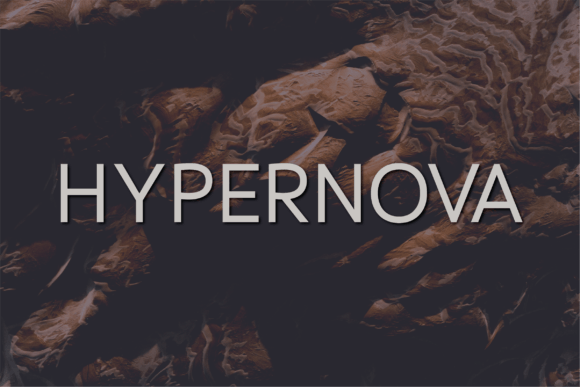
Unlock the Power of Typography: Introducing Hypernova Font
You know that moment when a font just clicks, and your entire design comes together in a beautiful, cohesive way? It’s like a spark of creativity has ignited, and you can’t wait to see your vision come to life. For designers, finding the perfect font can be a game-changer, and that’s exactly what Hypernova Font is all about.
This stunning sans serif font is designed to elevate your most creative ideas, making them shine in any format – from logos and wedding invitations to advertisements and magazine spreads. With its modern, classy aesthetic, Hypernova Font is the perfect choice for designers looking to add a touch of sophistication to their work. Whether you’re a seasoned pro or just starting out, this versatile font is sure to become a trusted companion in your design journey.
Key Features of Hypernova Font
- Font Family: Hypernova is a high-end, modern sans-serif font family designed for digital use. It comes in multiple weights, from Light to Black.
- Character Set: The font family includes over 1000 glyphs, including Latin, Cyrillic, and Greek alphabets, as well as a range of punctuation marks and symbols.
- Unique Characteristics: Hypernova features a unique blend of geometric and organic shapes, resulting in a clean and modern aesthetic. Its high x-height and open counters make it highly legible at small sizes.
Hypernova Font Review
Overall, I’m quite impressed with the Hypernova Font. ✨ It has a futuristic, energetic feel that’s perfect for tech-related projects or anything that needs a bold, attention-grabbing look. The font is highly customizable, allowing you to adjust everything from the weight to the line spacing, which is a big plus.
The font also includes a wide range of languages, making it a great choice for international projects. ✨ The character set is well-designed and covers all the necessary glyphs for a smooth user experience.
Overall, I’d give the Hypernova Font 4 out of 5 stars. It’s a solid choice for most modern projects, but users should be aware of the potential limitations, especially when it comes to legacy support and customization options.
Tips for Getting the Most Out of Hypernova Font
Use Hypernova Font for headings and titles to add a touch of elegance to your designs. Experiment with different font sizes and styles to create a visually appealing layout. Use the font in conjunction with other design elements to create a cohesive look.
Hypernova Font is suitable for a variety of use cases, including:
- Branding and identity design
- Print and digital marketing materials
- Graphic design and illustration
Q: Does Hypernova Font support ligatures and contextual alternates?
Yes, Hypernova Font supports ligatures and contextual alternates. Ligatures are used to improve the readability of connected letters, while contextual alternates provide more nuanced and elegant letterforms based on the surrounding text. These features can be enabled in most font-enabled applications.